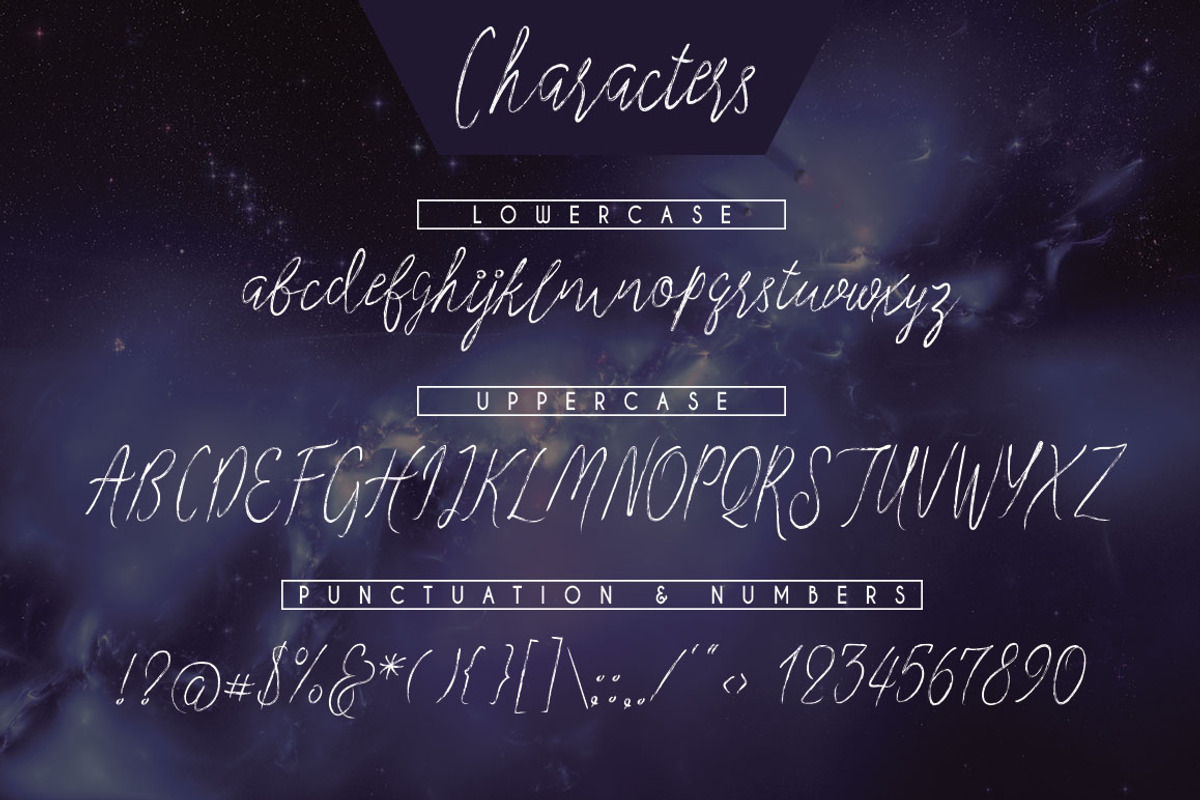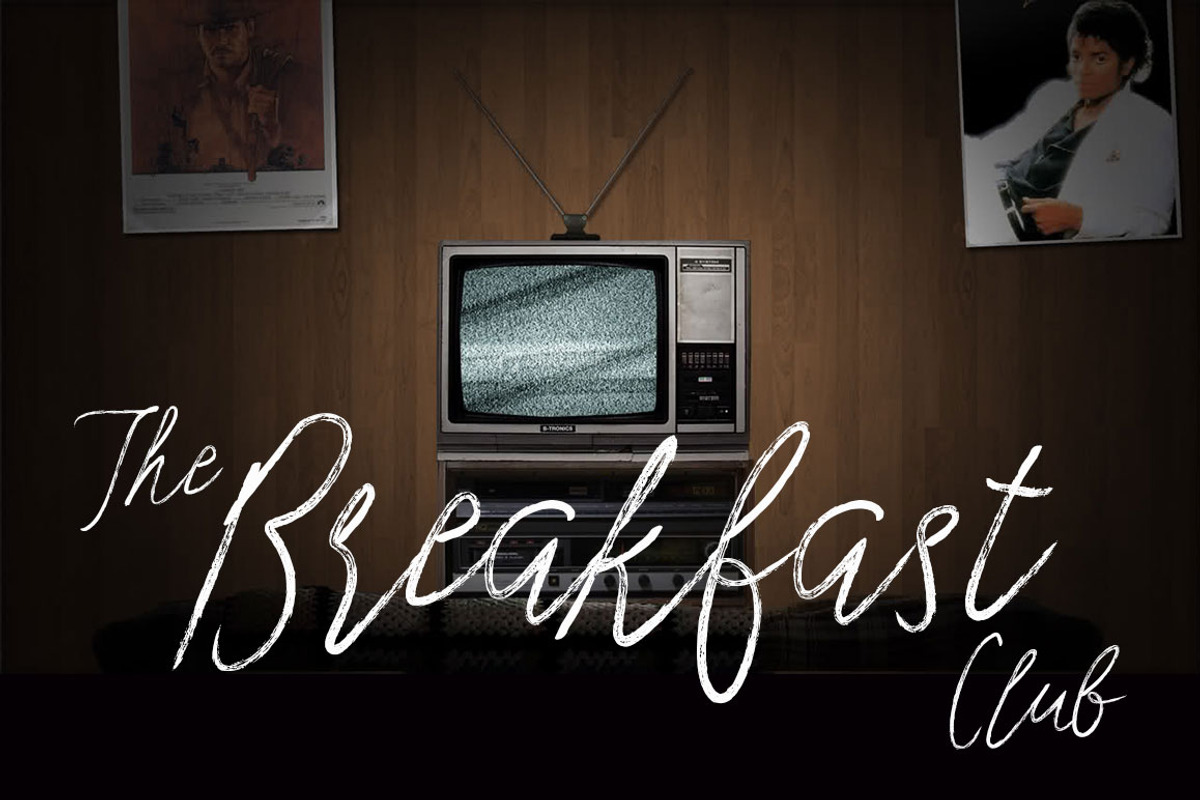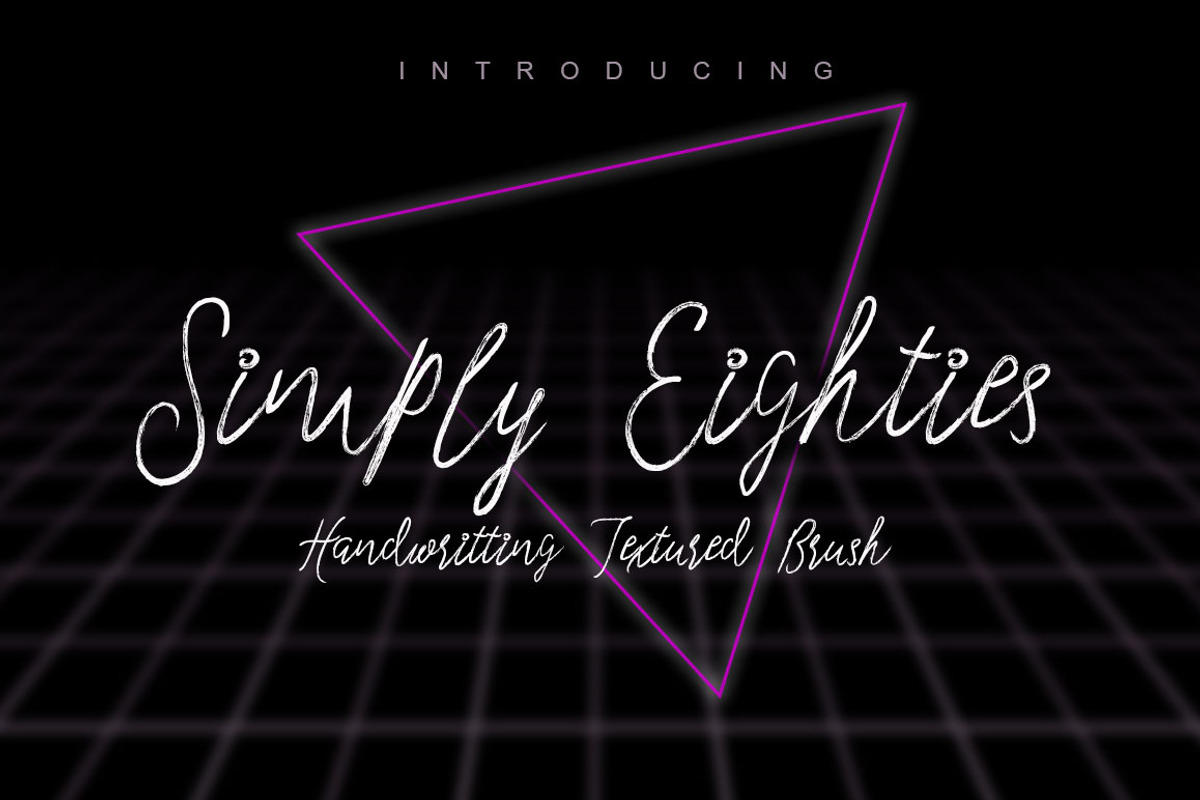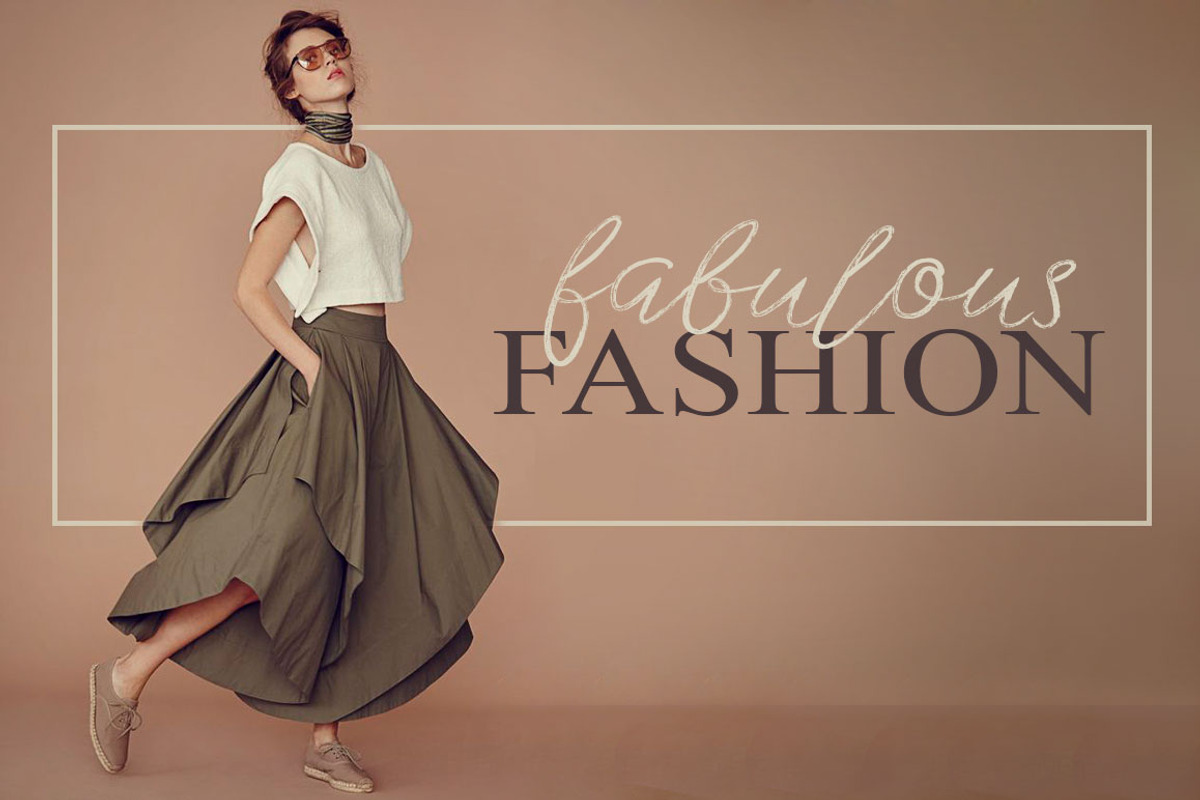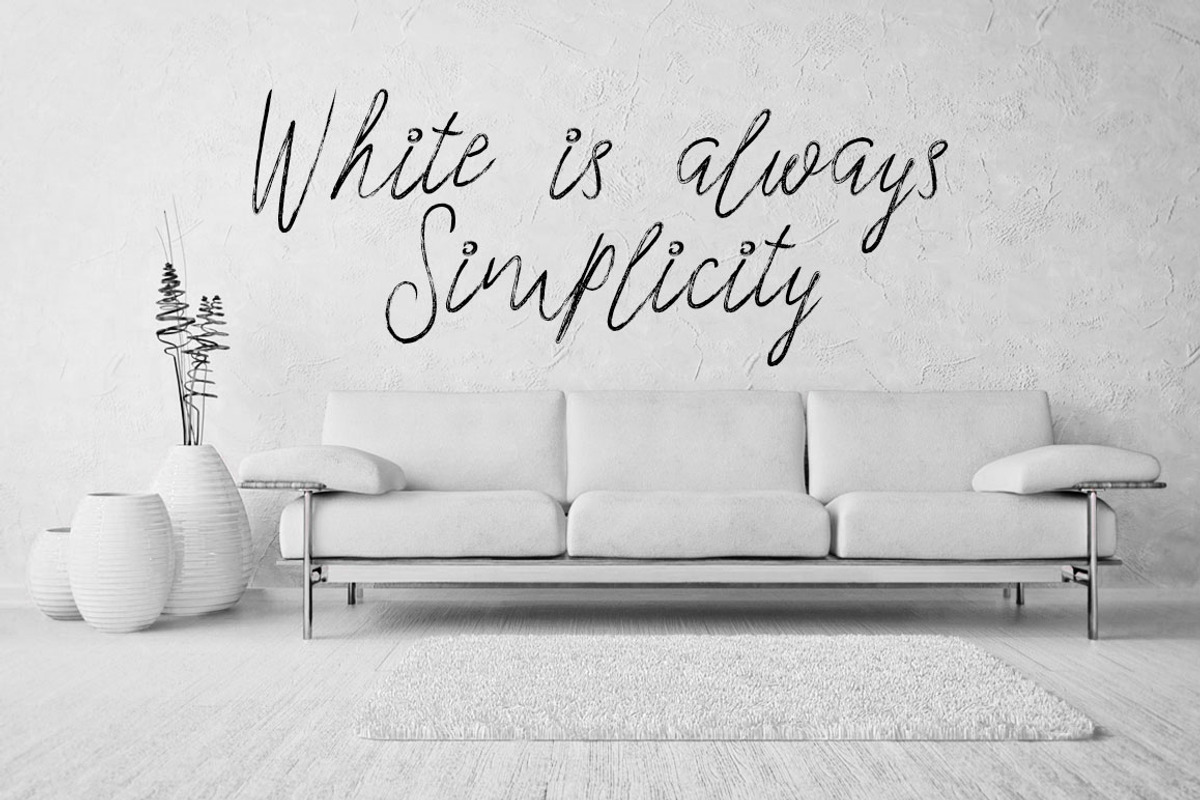
Simply Eighties Typeface
Simply Eighties is a cheerful little dry brushed font with a very naturally hand written look & just the right amount of texture. Balancing between stylish and extreme style to help you create the look of stunning custom hand-lettering. Simply Eighties is just what you've been looking for!
Use Simply Eighties on all of your projects to give it a affectionately hand brushed feel. In particular would look great on, branding projects, logos, product packaging, posters, invitations, greeting cards, titles, blogs, everything that includes personal charm and you name it. ;)
Simply Eighties brush script comes with upper and lowercase characters, punctuation glyphs, numerals, and a TTF of web font. Feel free to use it for commercial/ extended license purposes.